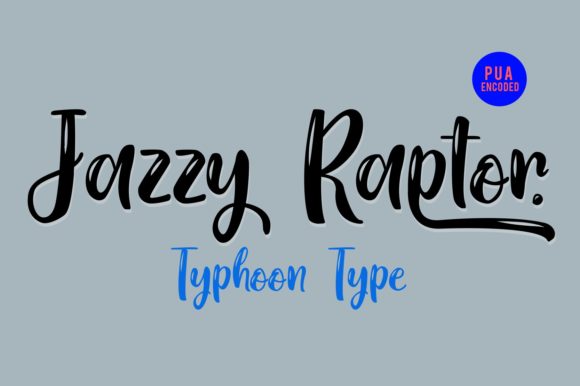
Jazzy Raptor Font
About Jazzy Raptor Font
Jazzy Raptor is a fun and playful script, perfect for logos, name tags, advertising, product packaging, clothing, social media & greeting cards.